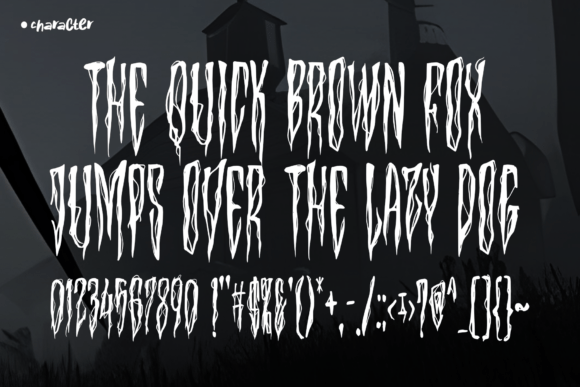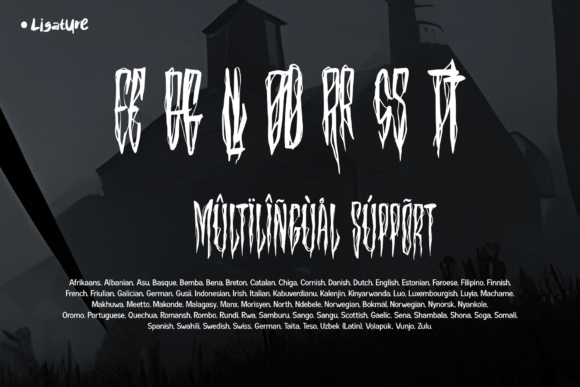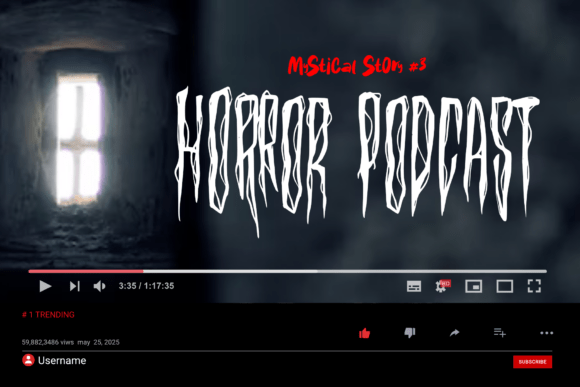
Introduction to Lamvier Font
Lamvier is a scary font that creates the impression of blood flowing with sharp and creepy details.
Using only uppercase letters, Lamvier provides a strong and intense impression on every design Suitable for use in titles, headers, posters, books, films, video games, and other designs that require a scary effect.